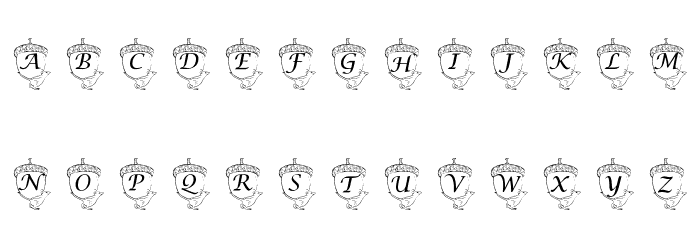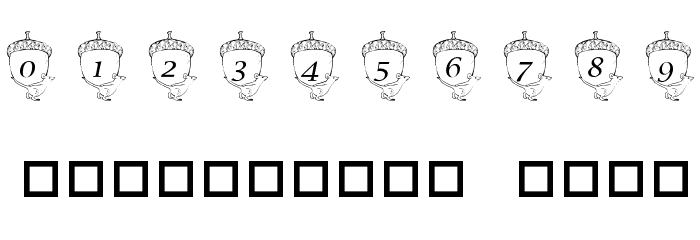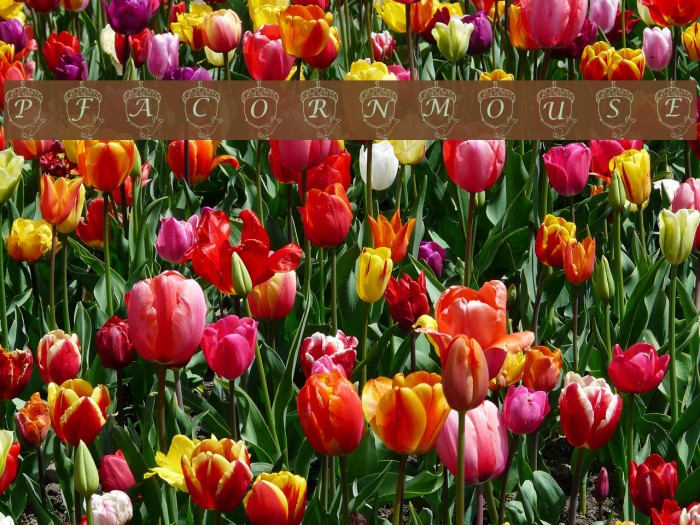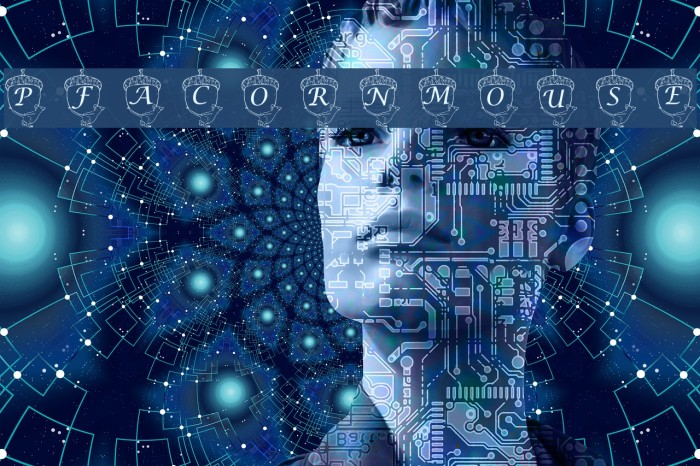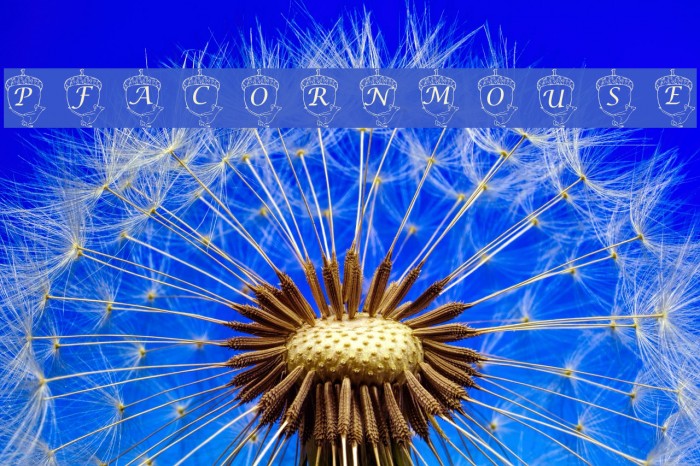
pf_acornmouse Font
This font features a unique and decorative style where each character is encased within an ornate acorn design. The letters are elegantly crafted with a classic serif style, providing a sense of sophistication and tradition. The acorn motif adds a whimsical and nature-inspired element, making it stand out as a decorative choice. The characters are consistently styled with a medium contrast in stroke thickness, giving them a balanced appearance. The overall design is intricate, with attention to detail in both the letterforms and the surrounding acorn shapes. This font would be ideal for projects that require a touch of elegance and creativity, such as invitations, greeting cards, or branding for nature-themed products.
An ornate serif font encased in decorative acorn designs, offering elegance and creativity.
- Proposed Projects: Ideal for invitations, greeting cards, nature-themed branding, and decorative projects.